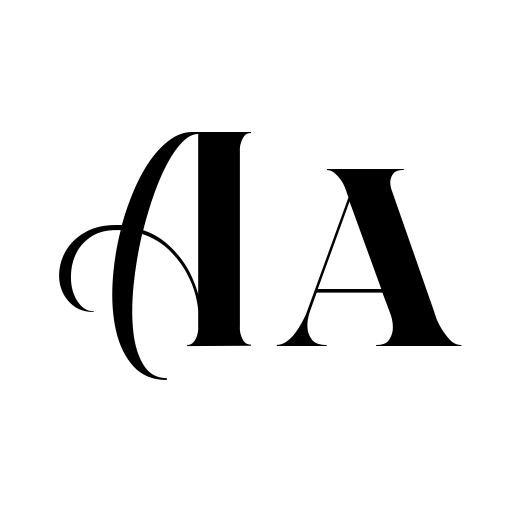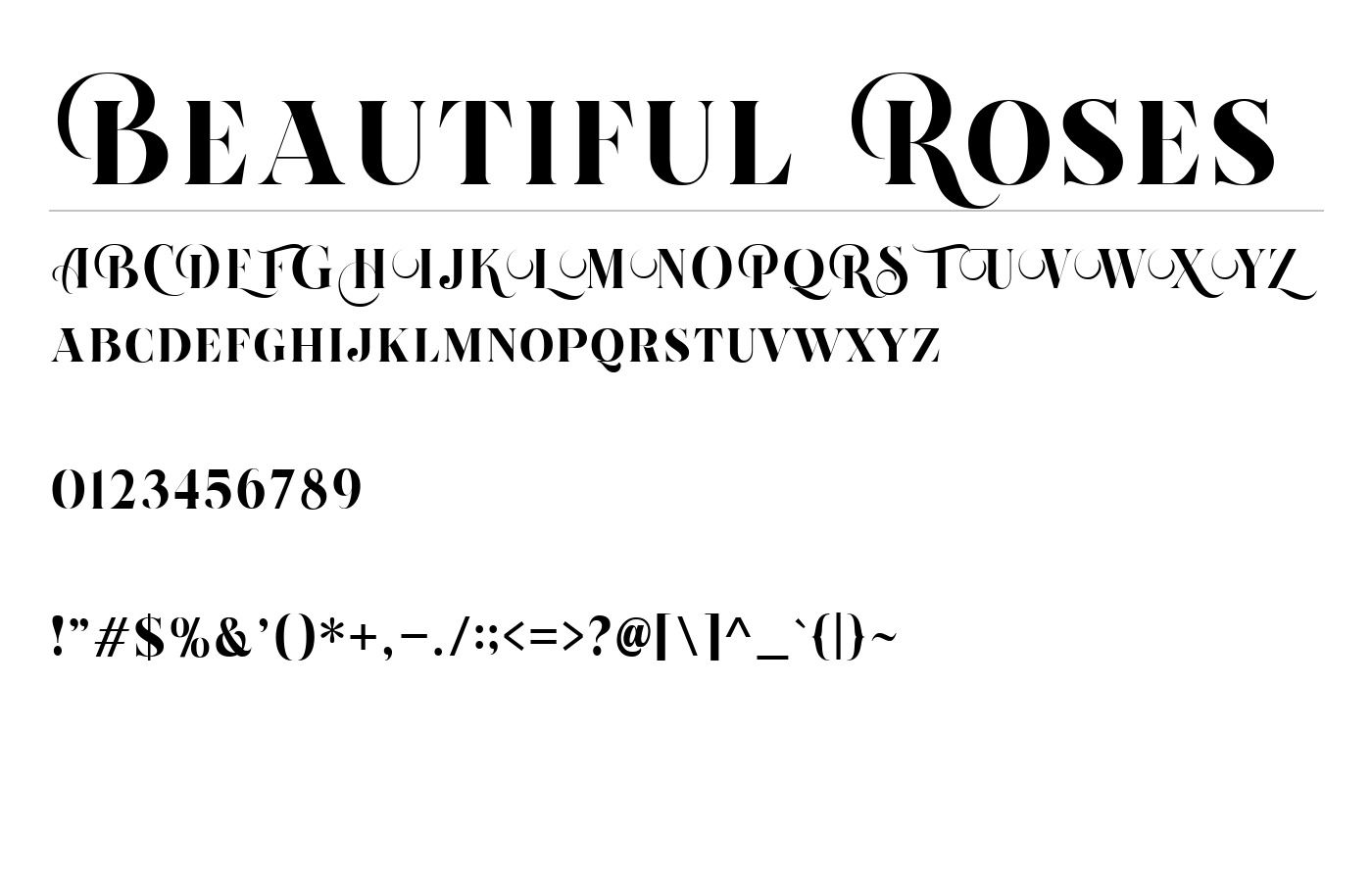
Beautiful Roses is a stylish serif font with a bold weight and high contrast between thick and thin strokes, giving it an elegant and dramatic look. With its tall, condensed letterforms and decorative swashes, it conveys a sophisticated and luxurious feel, perfect for fashion branding, elegant invitations, and upscale editorial headlines. This font’s unique ornamental details make it stand out in designs that aim for a refined, classic, and artistic impression.
Beautiful Roses Font
About Beautiful Roses Font
| Font family | Beautiful Roses Font |
| Designer | Blankids Studio |